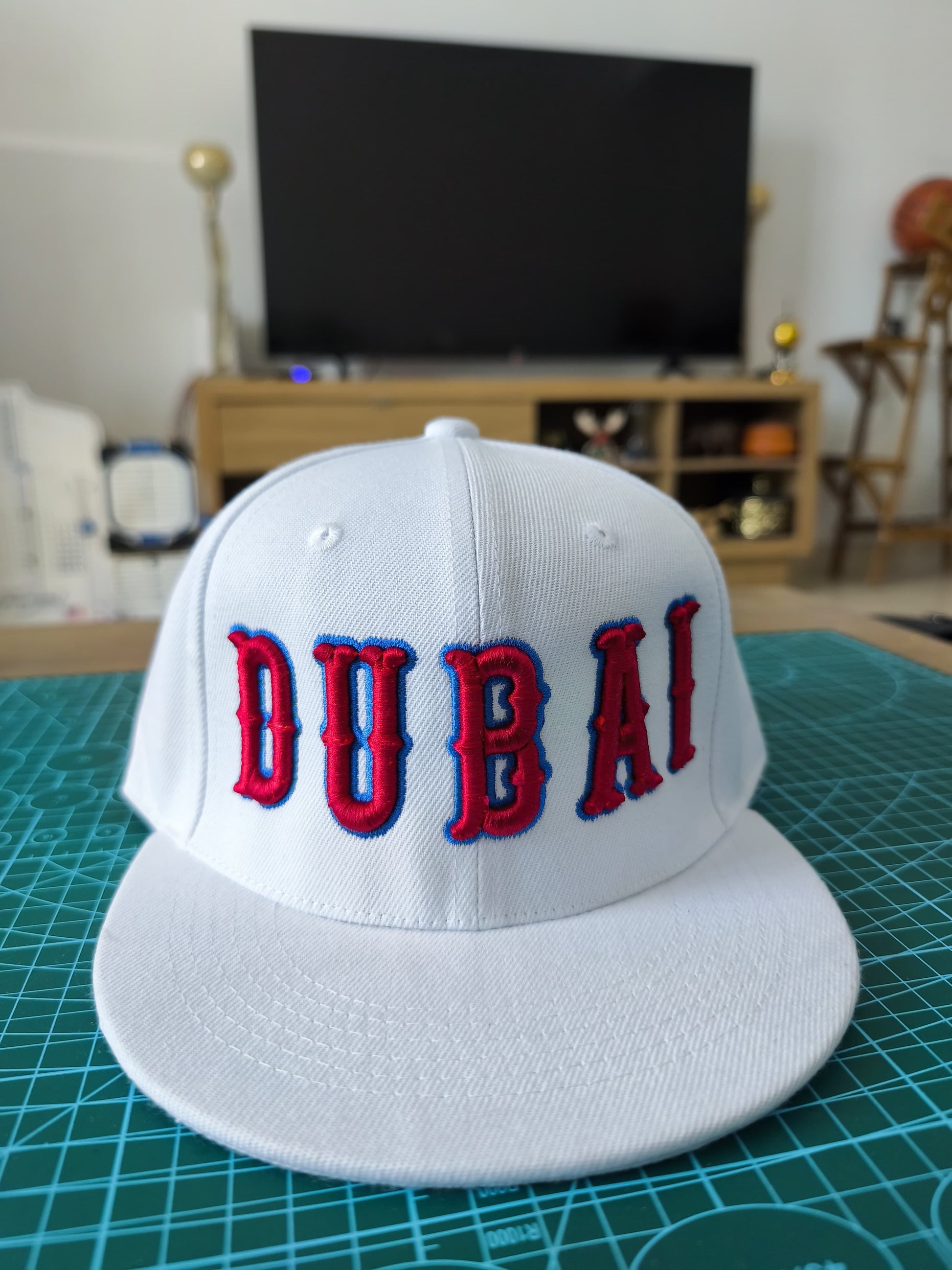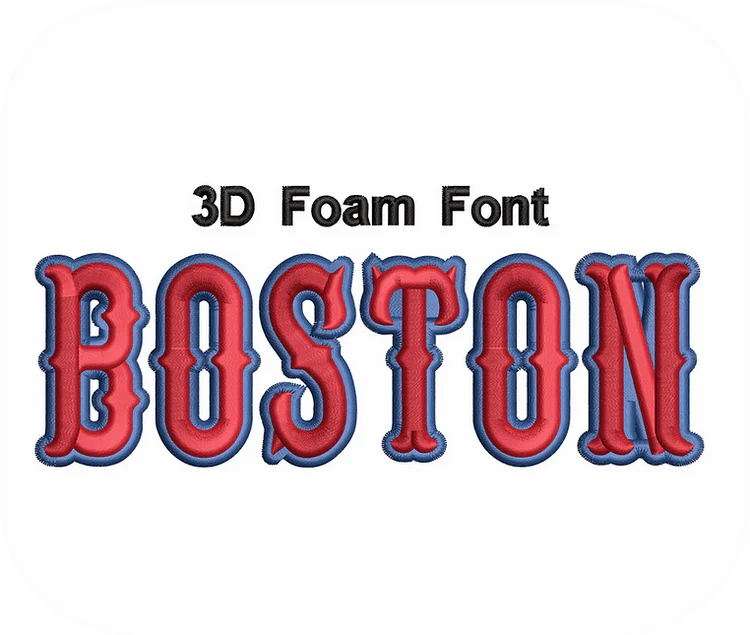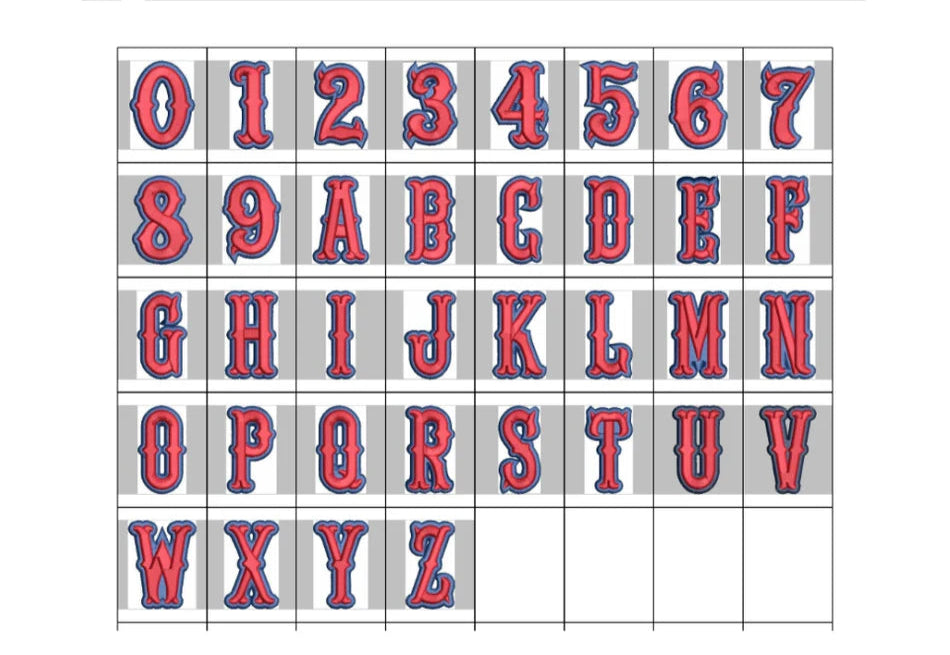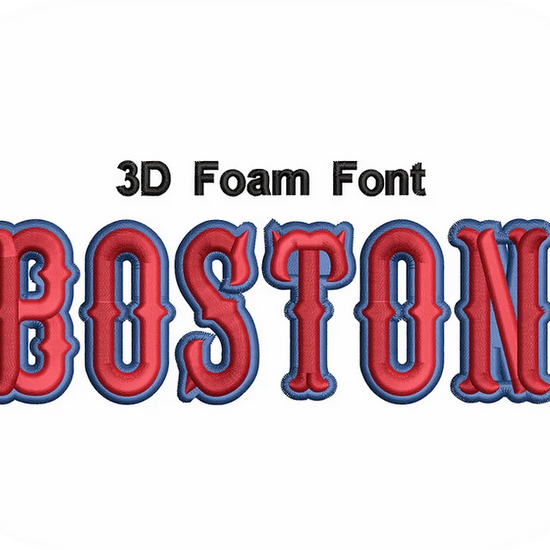
Custom 3D Boston Font
Elevate your style with our Custom 3D Foam Boston Font Embroidery—made exclusively for caps! Featuring thick, raised Boston lettering, this design adds bold dimension and street-inspired flair to any hat.
Crafted with premium 3D puff embroidery for a standout look, perfect for personal monograms, team caps, or custom branding, all expertly done in Dubai.